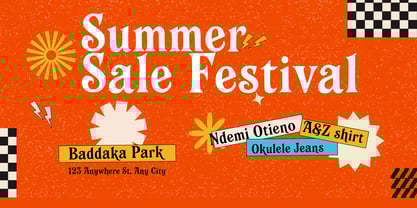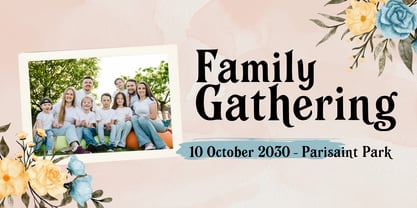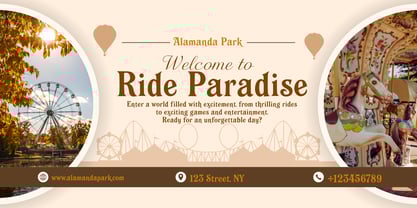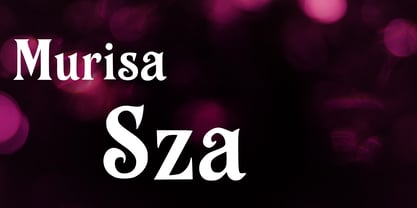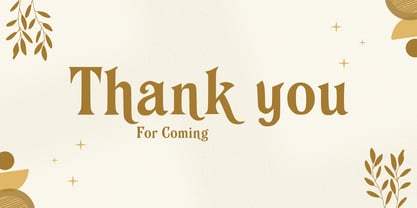
Murisa Sza
by Murisa Studio
The Murisa Sza Font Family was designed by Lili Sadili and published by Murisa Studio. Murisa Sza contains 2 styles and family package options.
✨ Murisa Sza — Where Elegance Meets Precision Step into a world of timeless sophistication with Murisa Sza, a masterfully designed serif typeface that commands attention and elevates every composition it touches. With its bold yet graceful contours, this font speaks the language of luxury, refinement, and enduring style. 🖋️ Crafted for Distinction Murisa Sza blends classic serif architecture with a modern, slightly condensed silhouette—perfect for editorial headlines, upscale branding, and statement-making visuals. Each glyph is meticulously shaped to balance strength and elegance, making it ideal for designers who demand both beauty and clarity. 🌍 Multilingual Powerhouse Designed with Eastern European audiences in mind, Murisa Sza offers seamless support for a wide range of Latin-based languages, ensuring your message resonates across borders without compromising style. 🎯 Why Choose Murisa Sza ? Perfect for luxury packaging, fashion campaigns, and high-end publications Harmonizes beautifully with minimalist layouts or ornate compositions Delivers impact in both print and digital formats A rare blend of editorial charm and commercial magnetism 💎 Make a Statement Murisa Sza isn’t just a font—it’s a signature. Whether you're crafting a brand identity or curating a visual masterpiece, this typeface transforms ordinary text into unforgettable design
Designers: Lili Sadili
Publisher: Murisa Studio
Foundry: Murisa Studio